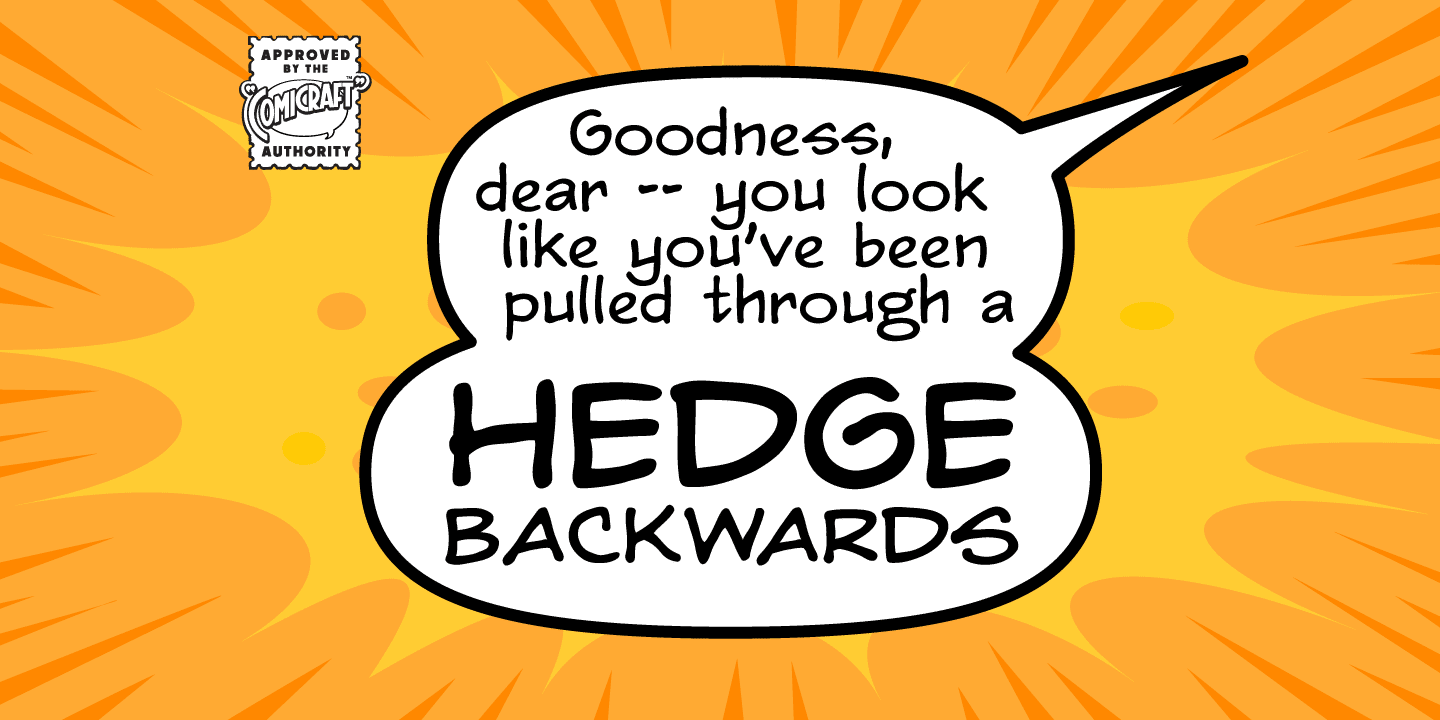
About the Hedge Backwards Font
About Hedge Backwards Font Family You begged with us..! You pleaded with us..! But we decided to release the official Richard Starkings font anyway! Yes, I am Richard Starkings and you may remember my hand lettering from such comic books as THE KILLING JOKE, TRANSFORMERS and, um, THE KILLING JOKE!
Hedge Backwards Font
Yes, finally Comicraft is making available the font that started it all — from the pages of MARVELS, SUPERBOY, GENERATION X and, um… MARVELS! The font that Kurt Busiek, writer/creator of ASTRO CITY, really, really likes but we’ve always refused to make available to him. Always leave your friends wanting more, that’s my motto. Publisher: ComicraftFoundry: ComicraftDesign Owner: ComicraftMyFonts debut: Oct 26, 2005 Hedge Backwards